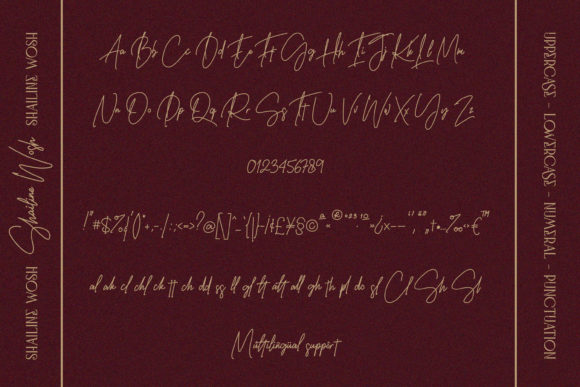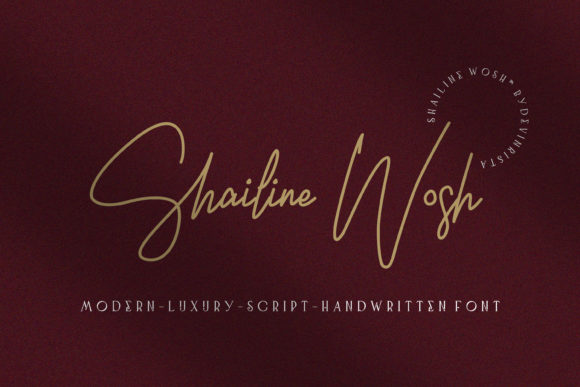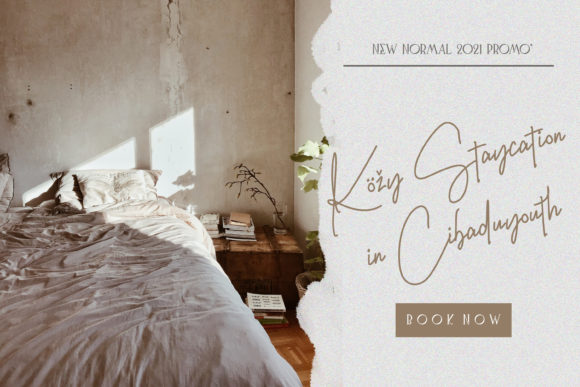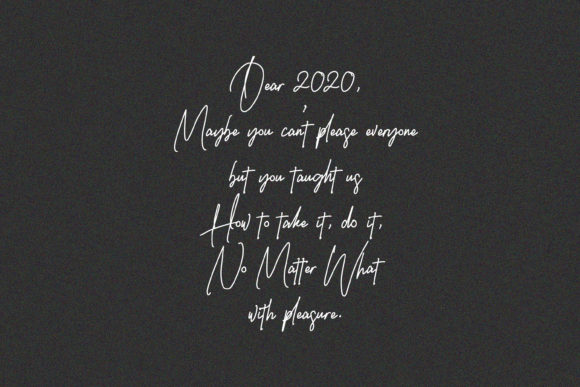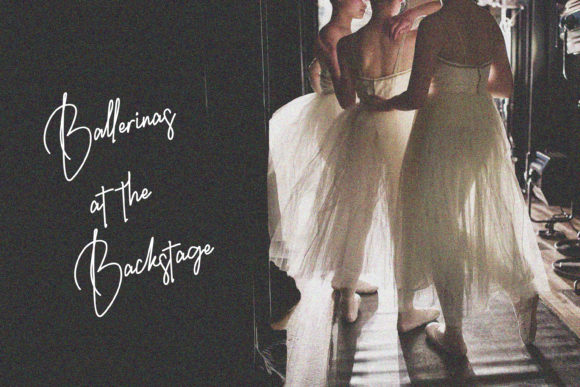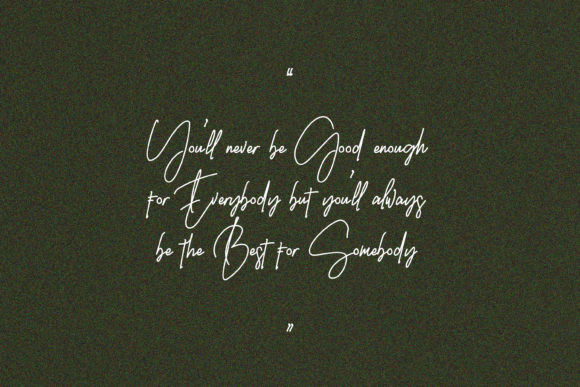
Shailine Wosh Font
About Shailine Wosh Font
Shailine Wosh is a minimal and flowing handwritten font. Use it to make your ideas even more realistic and create spectacular designs!